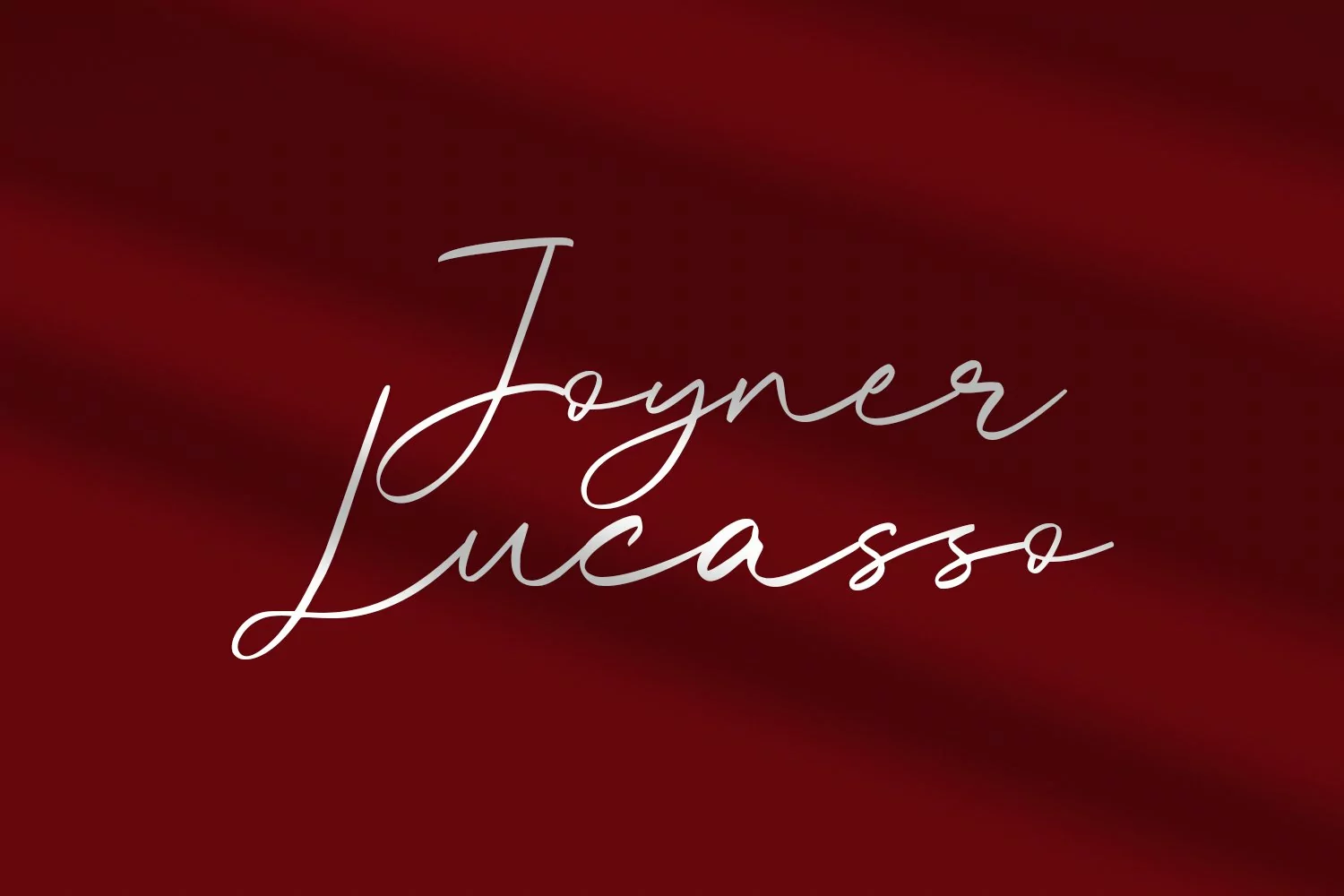
Posh Jarvis is a modern signature script font. With regular marker stroke, fun character with some of ligatures. To give you an extra creative work. Posh Jarvis font support multilingual more than 100+ language. This font is good for logo design, Social media, Movie Titles, Books Titles, a short text even a long text letter and good for your secondary text font with sans or serif. Make a stunning work with Posh Jarvis font.
Posh Jarvis